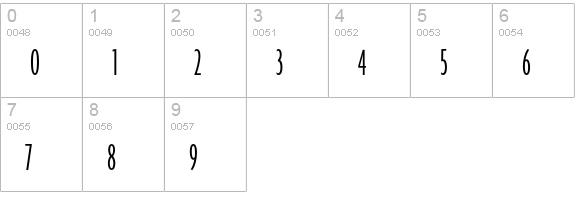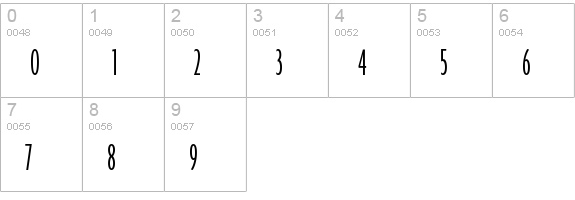
Agenda-LightUltraCondensed Font Details
Agenda-LightUltraCondensed font is a sleek and modern typeface that exudes sophistication and elegance. With its ultra-condensed design, this font is perfect for creating a clean and professional look in various design projects. The thin, light strokes of the characters give off a minimalist and contemporary vibe, making it ideal for use in branding, editorial design, and more. Not only does Agenda-LightUltraCondensed font offer style and versatility, but it is also available for free download at FontsMarket.com. This means that you can easily access this high-quality font without any cost, adding value to your design arsenal. Whether you're working on a logo, poster, website, or any other creative project, Agenda-LightUltraCondensed font is sure to elevate your designs with its unique charm and modern appeal.